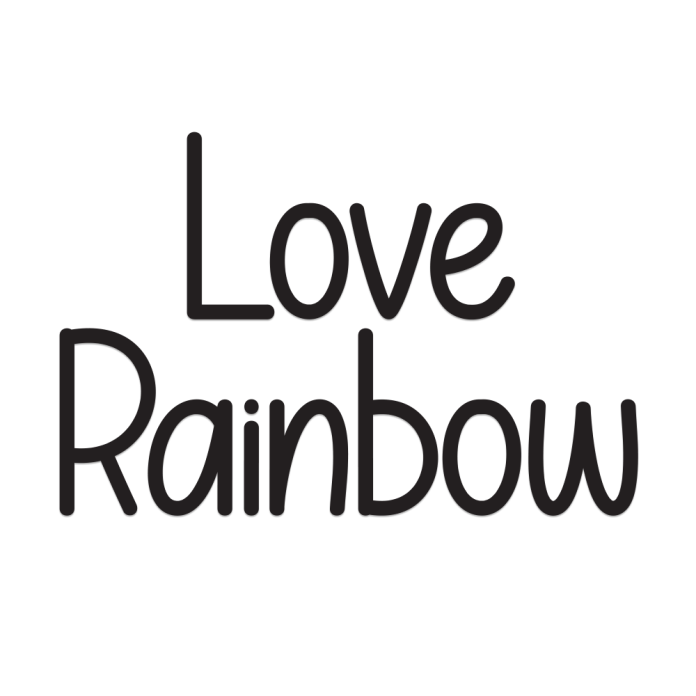
Love Rainbow is a joyful and eye-catching display font full of color, fun, and heart. With bold curves and cheerful letterforms, it instantly brightens up your designs like a sunny day after the rain.
Ideal for children’s designs, birthday invitations, cute packaging, social media posts, T-shirt prints, and anything that needs a vibrant, happy vibe.
Bold and bouncy display style
Fun, childlike aesthetic with a cheerful tone
Perfect for party themes, kids’ projects, and merchandise